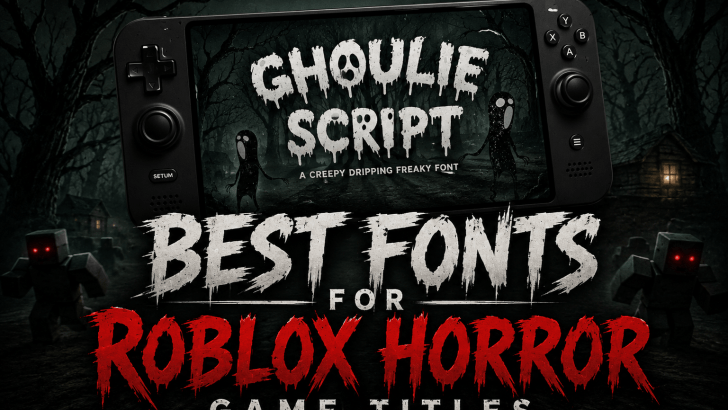
Roblox Horror Game Font Tips for Creepy but Readable Titles
Understanding Roblox horror game font tips can help designers, game creators, and thumbnail artists solve one common problem: making a title look scary without making it difficult to read. Many Roblox horror game visuals use dark colors, distorted letters, blood effects, and spooky illustrations, but the title often becomes unclear. When players cannot read the …